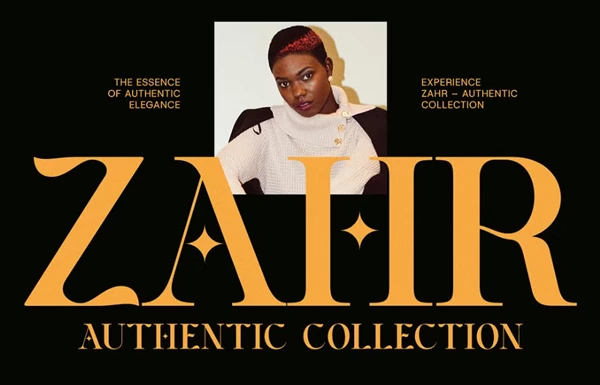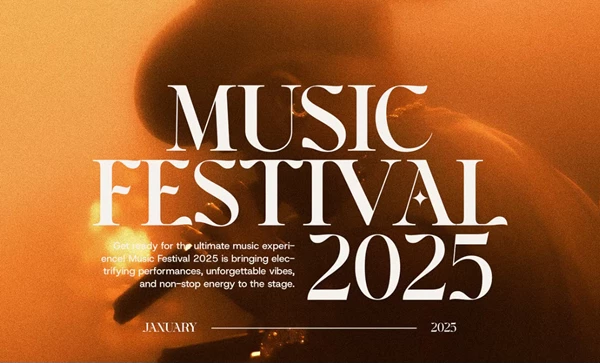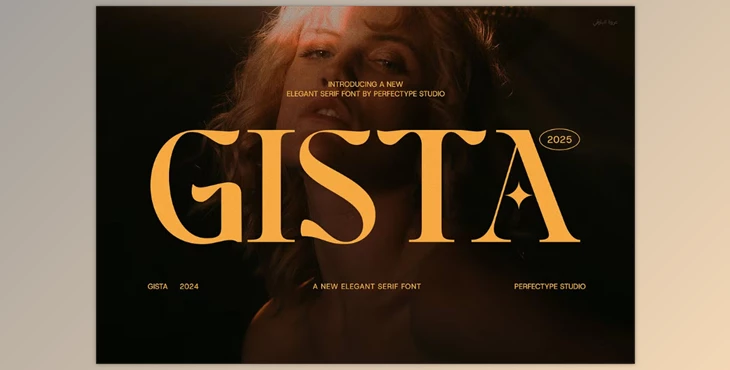
Gista Elegant Serif Font:
Meet the Gista Elegant Serif Font. This modern serif features contemporary angles and edges combined with elegance. It's the ideal luxurious and professional font to provide your project with the quality and look it deserves. Perfect for logo design, magazine covers, and website headers, this font will undoubtedly help your brand identity stand out with clarity and distinction.
Gista Elegant Serif is equipped with usable yet aesthetic ligatures, so your lettering will appear refined, professional, and unique. This font is appropriate for all digital and print designs, ranging from fashion editorials and fashion branding to food packaging and menus to lifestyle blogs and marketing of luxury items.
You'll receive this font specific to this professional endeavor, but know that it is versatile enough to accommodate almost any approach, from minimal branding to branding and marketing pieces dominated by typography.
This is not just a font. This is an Arsenal item that will give you power in branded endeavors. It has clean cuts but decorative elements, it's modern but at first glance comes across as classic.
- An elegant modern serif with rounded curves
- Ligatures are dressed in common styles
- Good for logos, packaging, websites, magazines, and social
- Produces professional projects with a modern yet classic backend
- Fully scalable and legible on all platforms
- Great for editorial lifestyle luxury fashion brands
"Gista Elegant Serif Font" Samples: